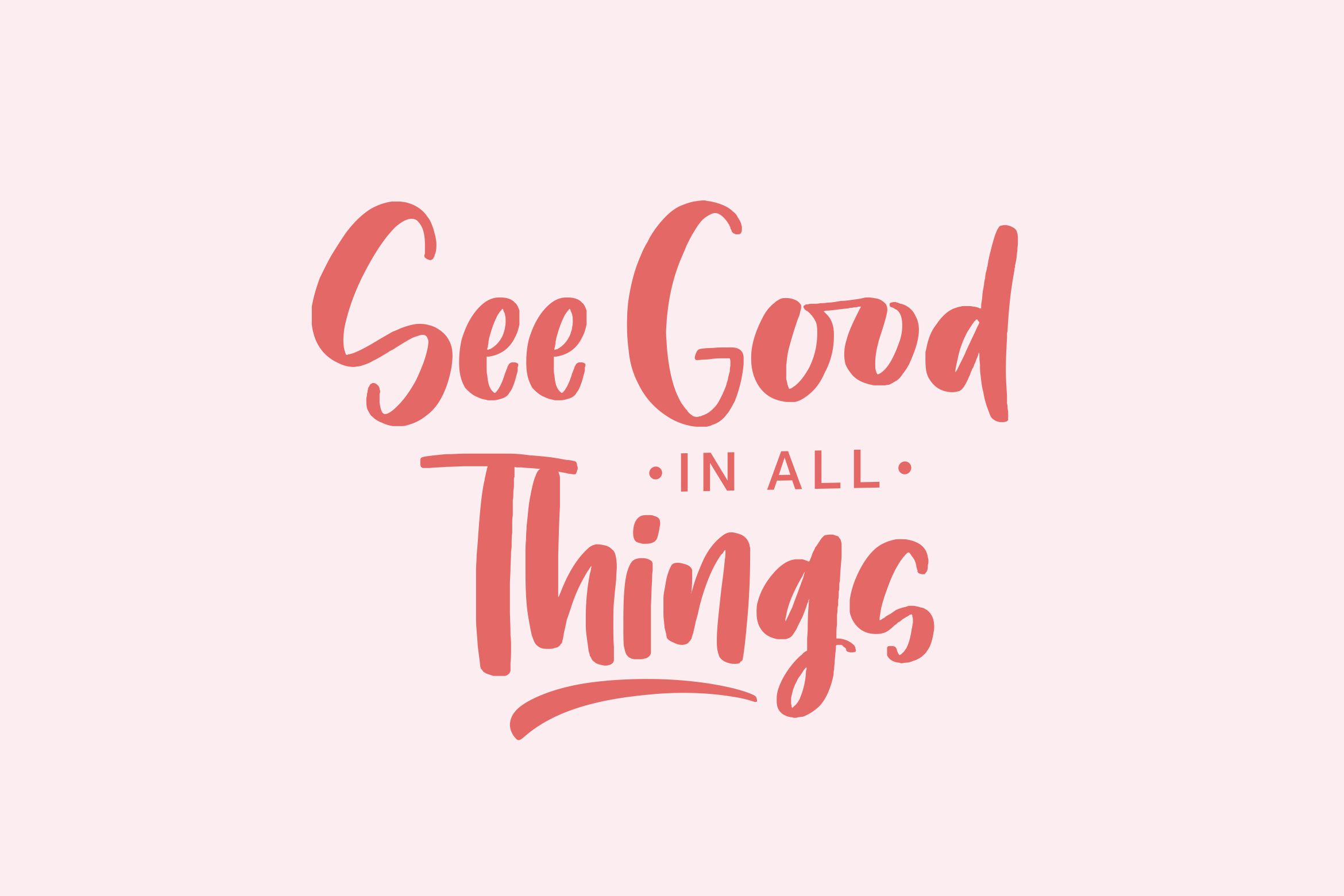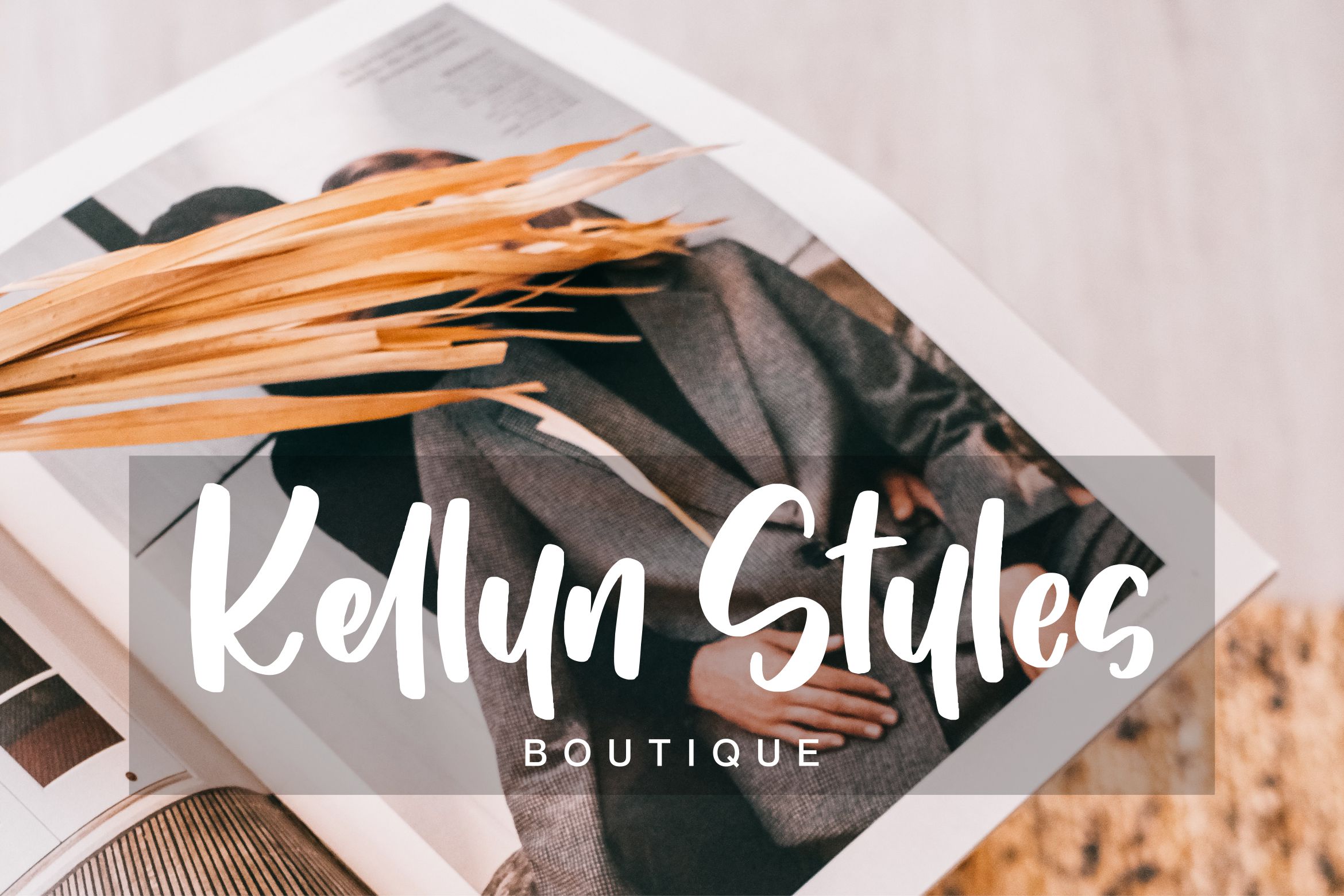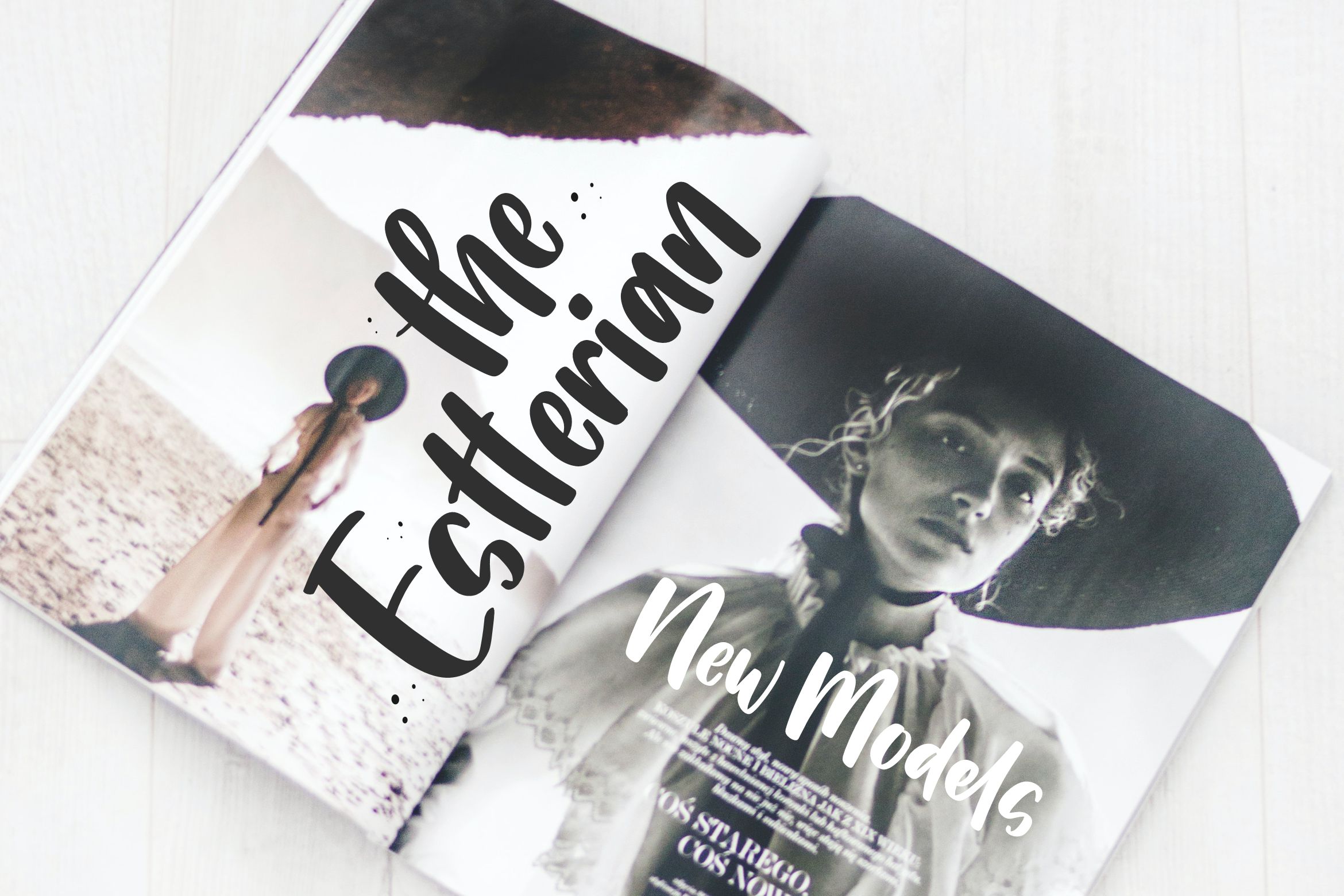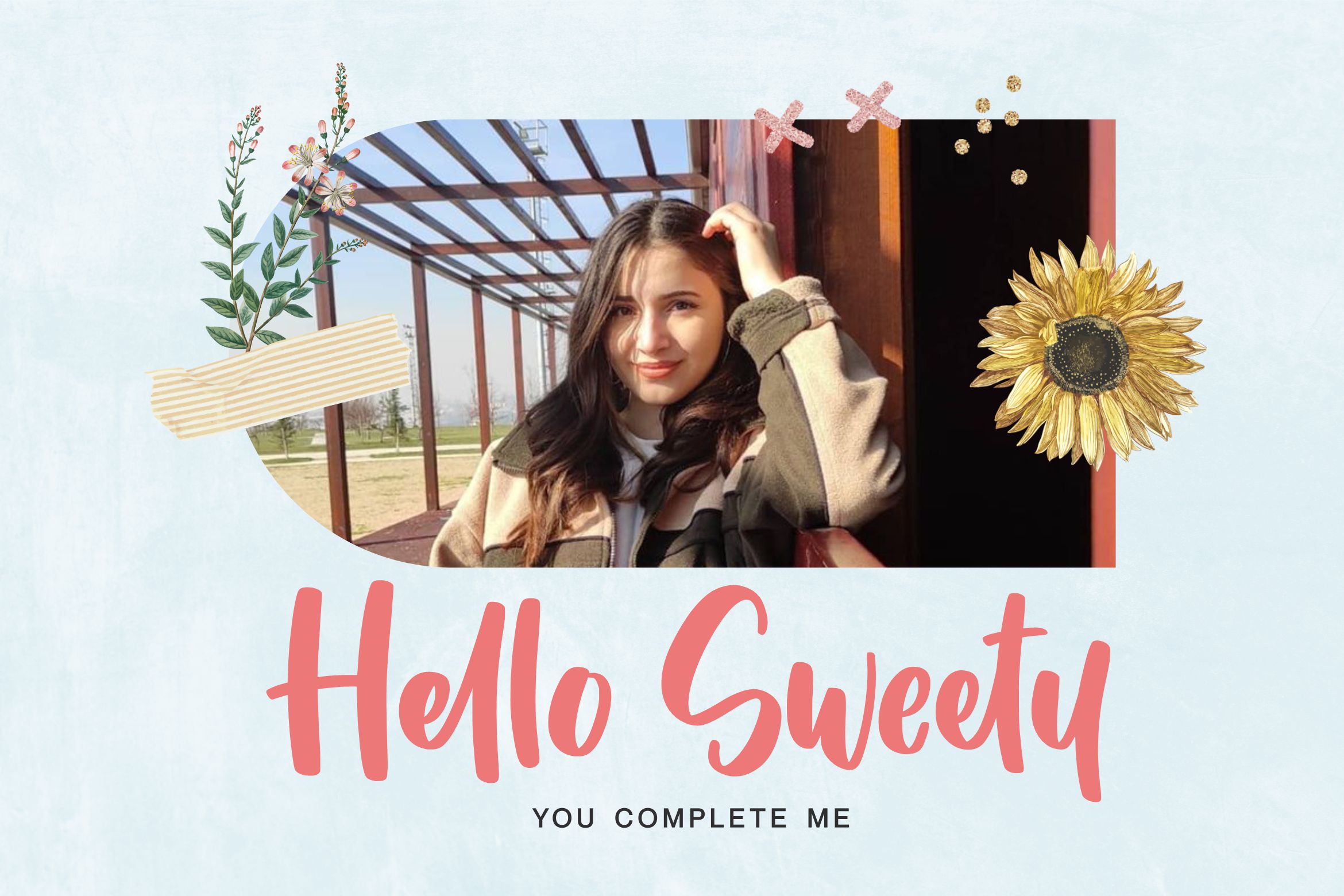
Bella Bold Font
Bella Bold Handwritten Font
Bella Bold is a Handwritten Font
Bella Bold is a magical handwritten font carefully created with a touch of boldness and elegance. Whether you’re looking for fonts for Instagram or calligraphy scripts for DIY projects, this font will turn any creative idea into a true piece of art!